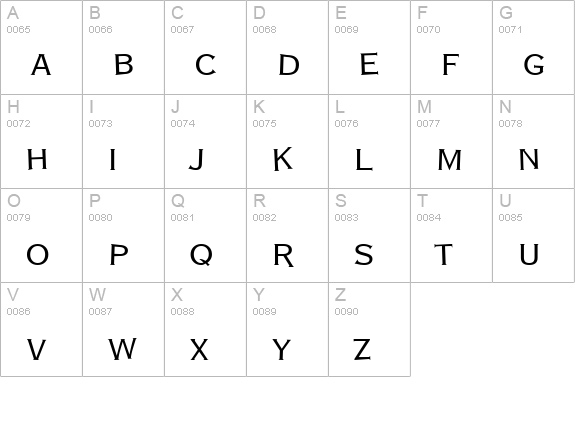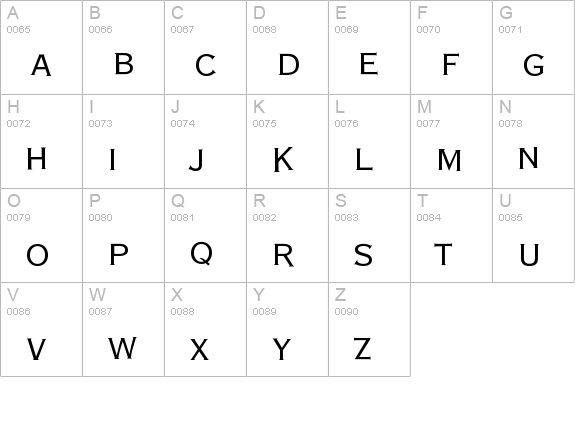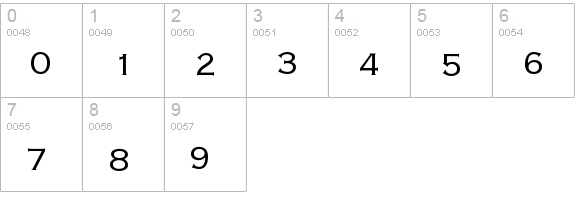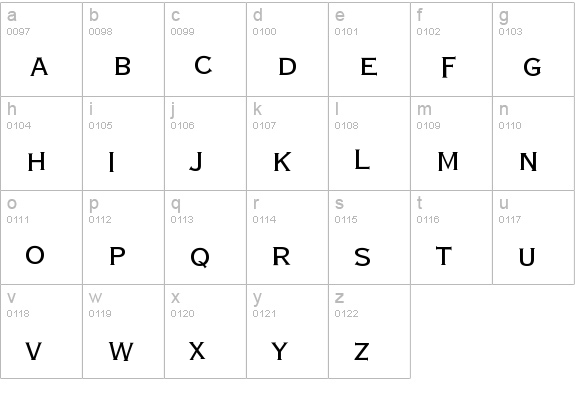
CK Regal Font Details
CK Regal font is a stunning and elegant typeface that exudes sophistication and luxury. With its classic serifs and refined details, CK Regal is perfect for adding a touch of sophistication to your projects. Whether you're designing a logo, creating invitations, or crafting a beautiful website, this font will elevate your designs to a whole new level. What's even better is that CK Regal font is available for free download at FontsMarket.com. Don't miss out on this opportunity to enhance your designs with this exquisite typeface without any cost. Download CK Regal today and bring a touch of regal elegance to your projects.